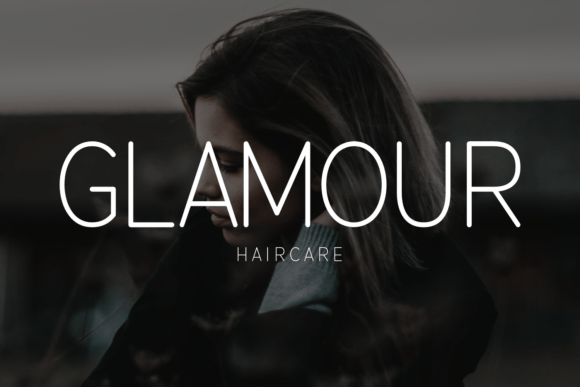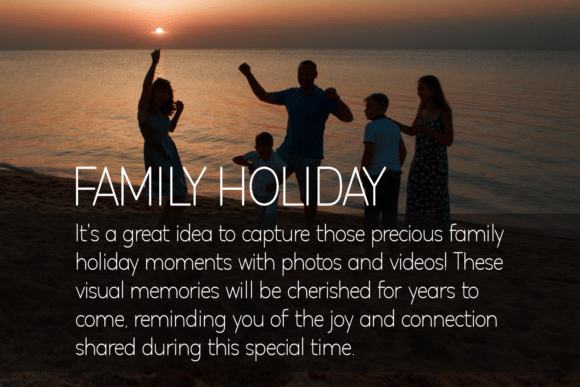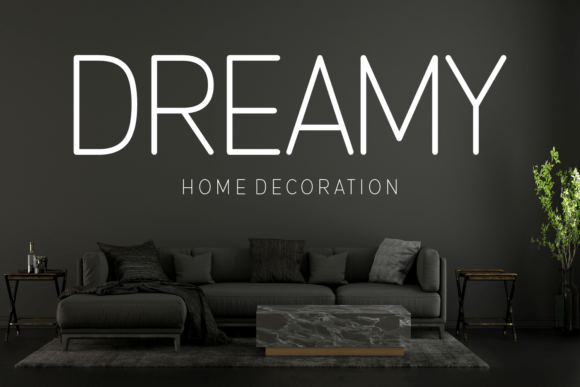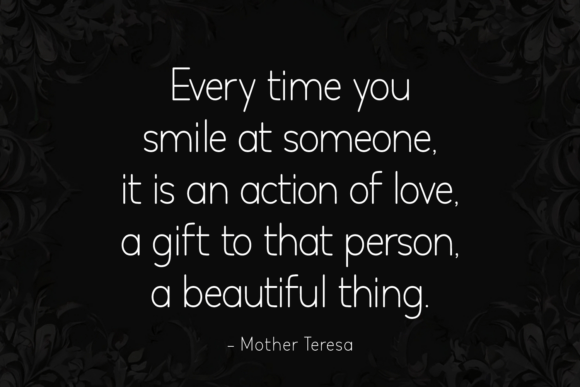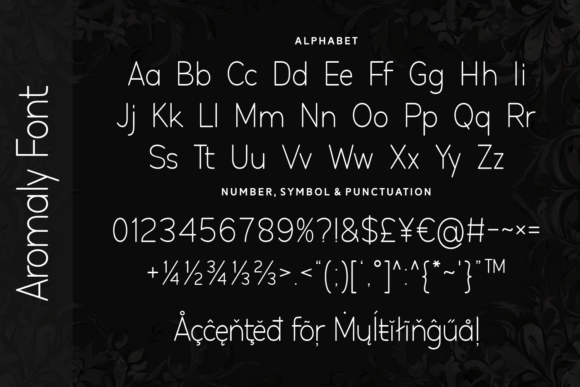
Aromaly Font: Elevate Your Design with a Touch of Sophistication
In the world of typography, a font can make or break the aesthetic of a design. For designers and crafters seeking a modern, clean, and versatile typeface, Aromaly Font is an exceptional choice. This minimalist sans serif font has been crafted to bring a touch of sophistication to any project, making it perfect for those who value simplicity and elegance.
The Essence of Aromaly Font
Aromaly Font is characterized by its sleek lines, uncomplicated structure, and high-end feel. Its minimalist design ensures that it remains versatile and adaptable, suitable for a wide range of applications. From branding and advertising to packaging and digital media, Aromaly Font can be seamlessly integrated into various design projects.
Key Features of Aromaly Font
- Minimalist Design: Aromaly Font boasts a clean and straightforward design, free from unnecessary embellishments. This simplicity makes it highly legible and versatile.
- Sans Serif: The font’s sans serif style gives it a modern and streamlined appearance, perfect for designs that require a contemporary edge.
- High-End Feel: Despite its minimalist nature, Aromaly Font exudes a sense of luxury and sophistication, making it ideal for high-end branding and marketing materials.
- Versatility: Aromaly Font can be used across various platforms and design projects, including print and digital media, ensuring consistency in your brand’s visual identity.
Promotional Image for Aromaly Font
A promotional image for “Aromaly,” showcases the font in a sophisticated and high-end presentation. This visual representation perfectly highlights the font’s modern, clean, and versatile character. The image likely features Aromaly Font used in various design contexts, demonstrating its adaptability and aesthetic appeal.
Who Can Benefit from Aromaly Font?
Aromaly Font is an excellent choice for a variety of designers and professionals, including:
- Graphic Designers: Those working on branding, logos, and marketing materials will find Aromaly Font’s clean and modern look highly beneficial.
- UI/UX Designers: For digital products, Aromaly Font’s legibility and simplicity make it an excellent choice for interfaces and user experiences.
- Crafters and Makers: Individuals creating their own products, such as crafters making labels or branding materials, will appreciate Aromaly Font’s ease of use and professional appearance.
How to Use Aromaly Font Effectively
To maximize the potential of Aromaly Font, consider the following tips:
- Pair with Complementary Fonts: Use Aromaly Font in combination with other fonts to create visual interest and hierarchy in your designs.
- Experiment with Sizes and Weights: Aromaly Font comes in various sizes and weights. Experiment to find the perfect balance for your design.
- Apply to Digital and Print Media: Take advantage of Aromaly Font’s versatility by using it across both digital platforms and print materials.
Aromaly Font is a sophisticated and versatile typeface that can elevate any design project. Its minimalist sans serif design, combined with its high-end feel, makes it an ideal choice for designers and crafters seeking a modern and clean aesthetic. By incorporating Aromaly Font into your projects, you can ensure a professional and elegant appearance that stands out in today’s competitive design landscape.